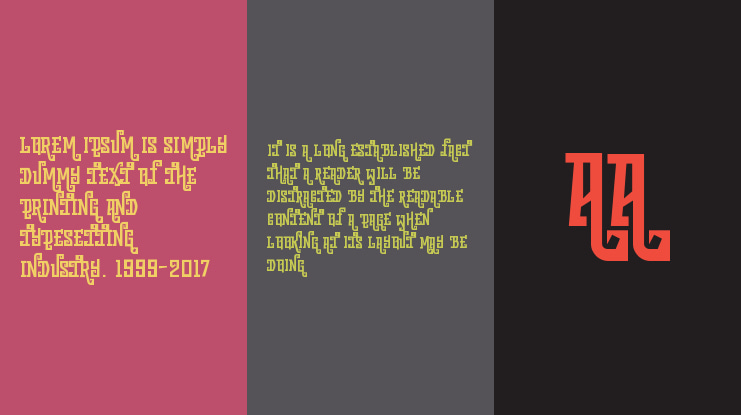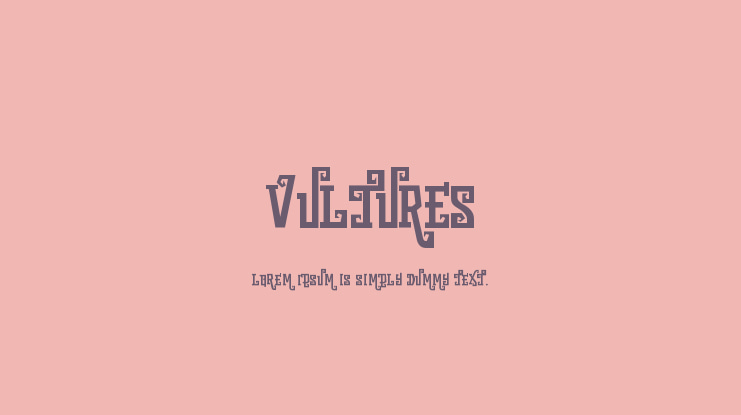
vultures Font
VULTURES is mythical display font with a mysterious & annoying feel, inspired by Story about animal spirit and The Wizard! offers you a mystic and magical atmosphere to your design projects.Suitable for book/novel or movie title, logos & branding, social media posts, advertisements & product designs, etc.